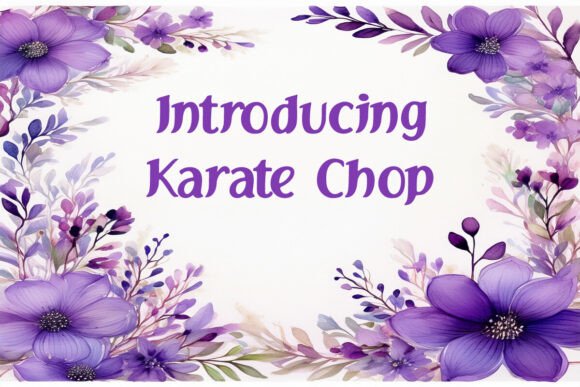
Introduction to Karate Chop Font
Do you remember the moment when a font just clicked and your entire design project came together? For many creatives, that moment is pure magic. It’s the thrill of seeing your ideas take shape and your vision come alive. If you’re on the hunt for that special something to elevate your next project, you’re in luck. The Karate Chop Font is here to shake things up and bring a fresh touch to your designs.
This high-quality font is not just another design resource – it’s a game-changer. With its bold, eye-catching style, the Karate Chop Font is perfect for creating striking t-shirt designs, bold branding initiatives, and eye-catching magazine layouts. Plus, it’s easily adaptable for the digital realm, making it a valuable asset for social media posts, greeting cards, and Cricut projects.
Key Features of Karate Chop Font
- High-quality design resource perfect for creative projects requiring a unique touch.
- Includes a range of characters, including uppercase and lowercase letters, numbers, and punctuation marks, making it a versatile font for various creative projects.
- Features a bold, eye-catching design that’s perfect for adding a touch of edginess to your designs, such as posters, flyers, or social media graphics.
Honest Review: Karate Chop Font
As a designer, I’m always on the lookout for high-quality design resources to elevate my creative projects. Recently, I stumbled upon the Karate Chop Font, and I must say it’s been a game-changer.
- ✨ The font’s unique, edgy design makes it perfect for projects that need a bold, eye-catching feel.
- ⚠️ The font is not ideal for projects that require a more subtle or elegant look.
Overall, I’m really impressed with the Karate Chop Font. It’s a great addition to any designer’s toolkit, and I’ve already used it in several projects. While it may not be suitable for every project, it’s definitely worth checking out if you’re looking for a bold, attention-grabbing font.
How to Use Karate Chop Font
The Karate Chop Font is a versatile and high-quality design resource ideal for creative projects. This font features a unique, bold style with a transparent background, making it perfect for adding a touch of sophistication to your designs.
Tips for Getting the Most Out of Karate Chop Font
To get the most out of the Karate Chop Font, use it in bold and eye-catching ways, such as in headings and titles. Experiment with different font sizes and styles to add depth and visual interest to your designs.
The Karate Chop Font is perfect for a variety of design projects, including:
- Business cards and marketing materials
- Website design and development
- Print materials and brochures
- Social media graphics and advertising